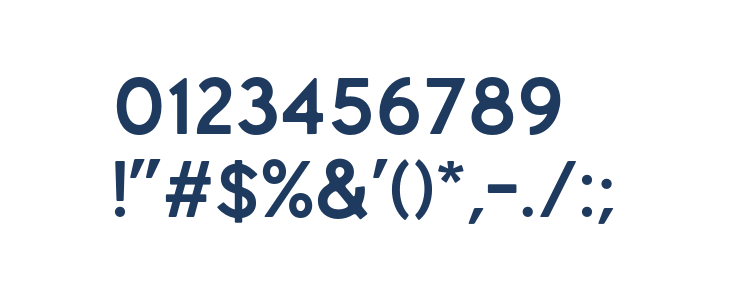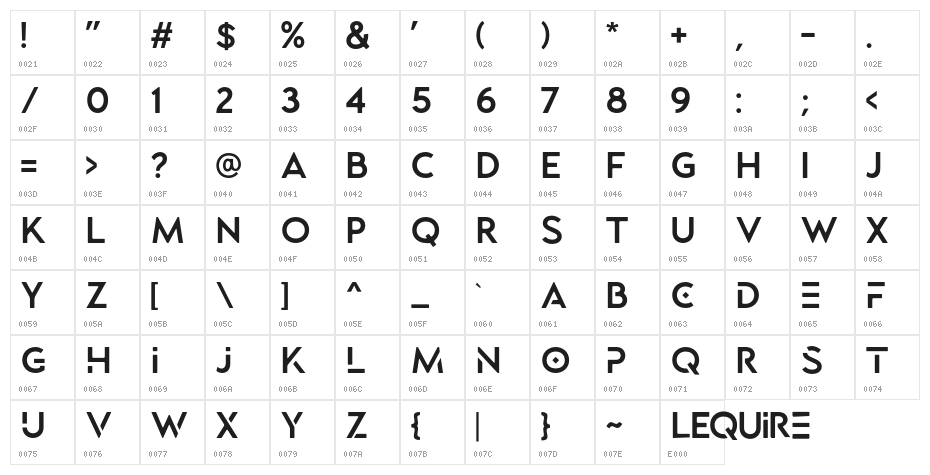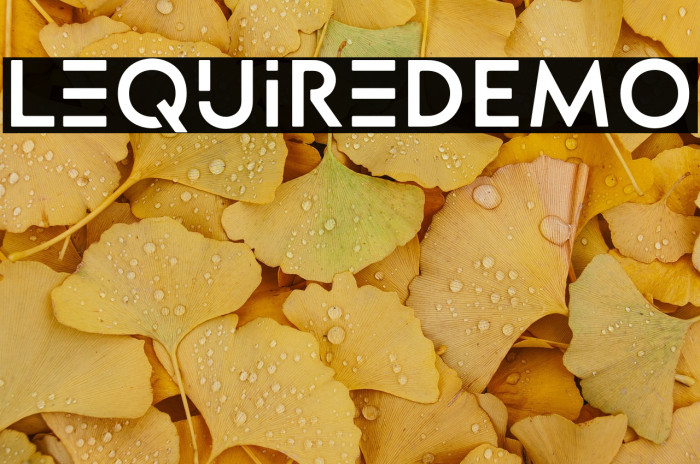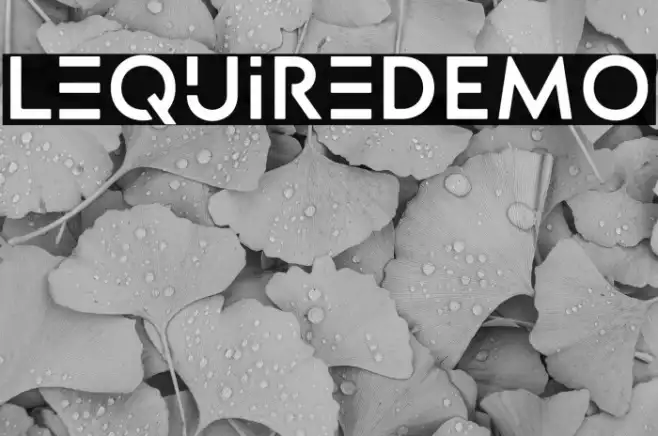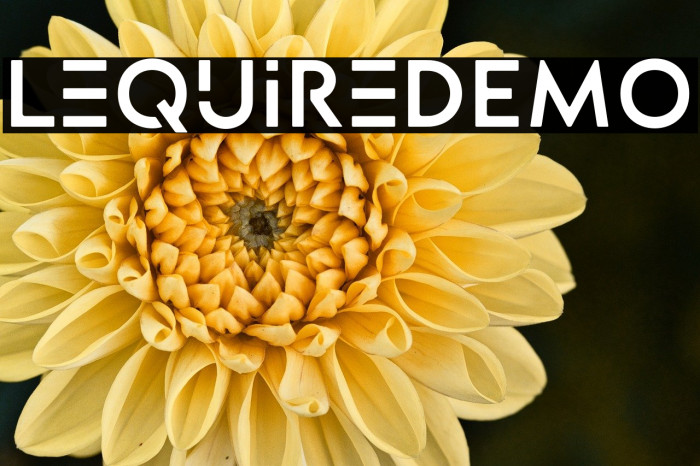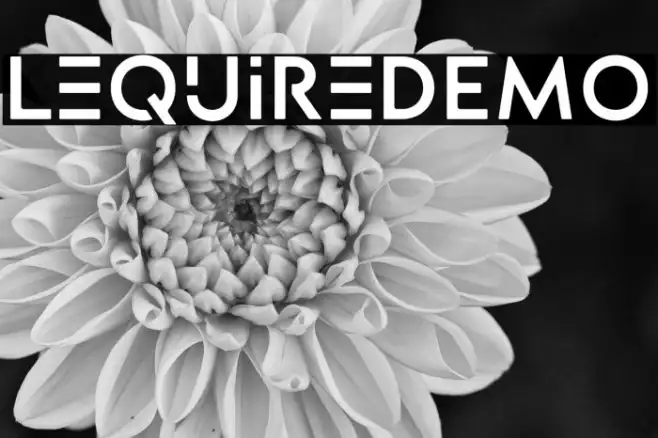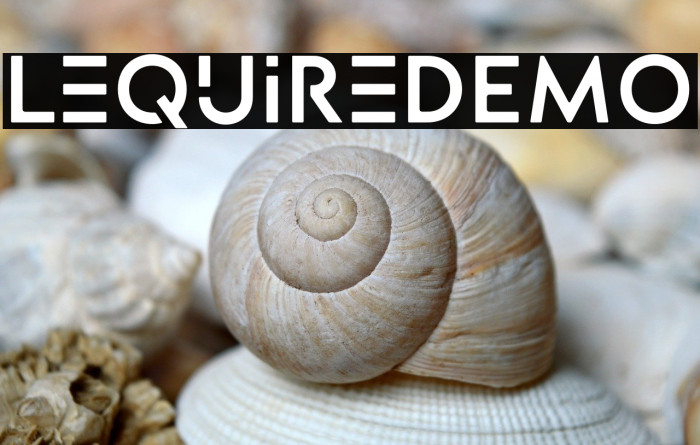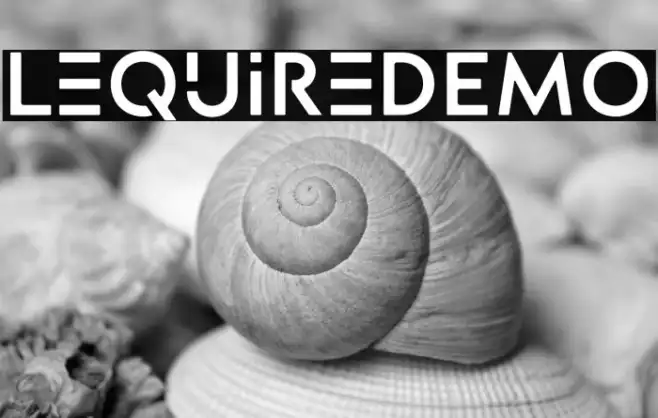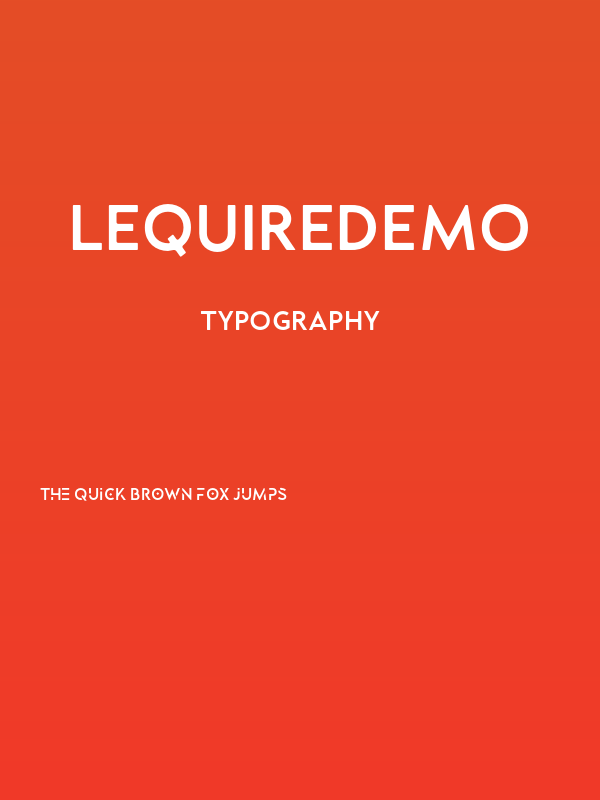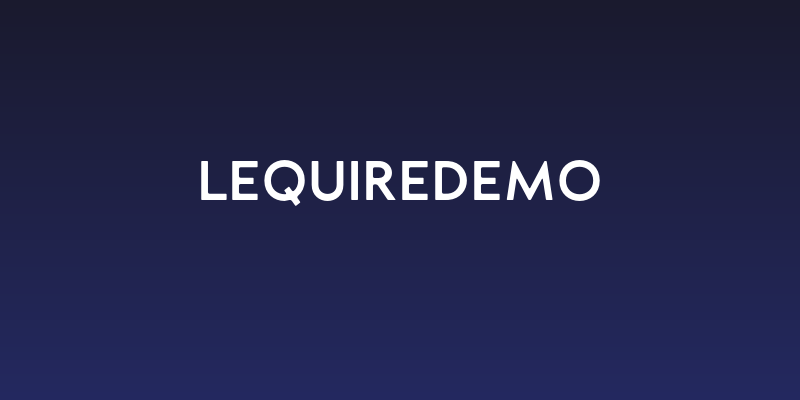
LequireDEMO Font
LequireDEMO Description
This font features a bold and modern design with clean, geometric lines and a strong presence. The uppercase letters are uniform in height, creating a cohesive and balanced appearance. The lowercase letters maintain the same geometric style, offering a seamless transition between cases. The numerals are clear and easy to read, with a consistent weight that matches the alphabet. Special characters are well-defined, adding versatility to the font. The overall design is sleek and contemporary, making it suitable for various applications.
| Proposed Projects | Ideal for branding, advertising, headlines, and digital media projects that require a modern and impactful look. |